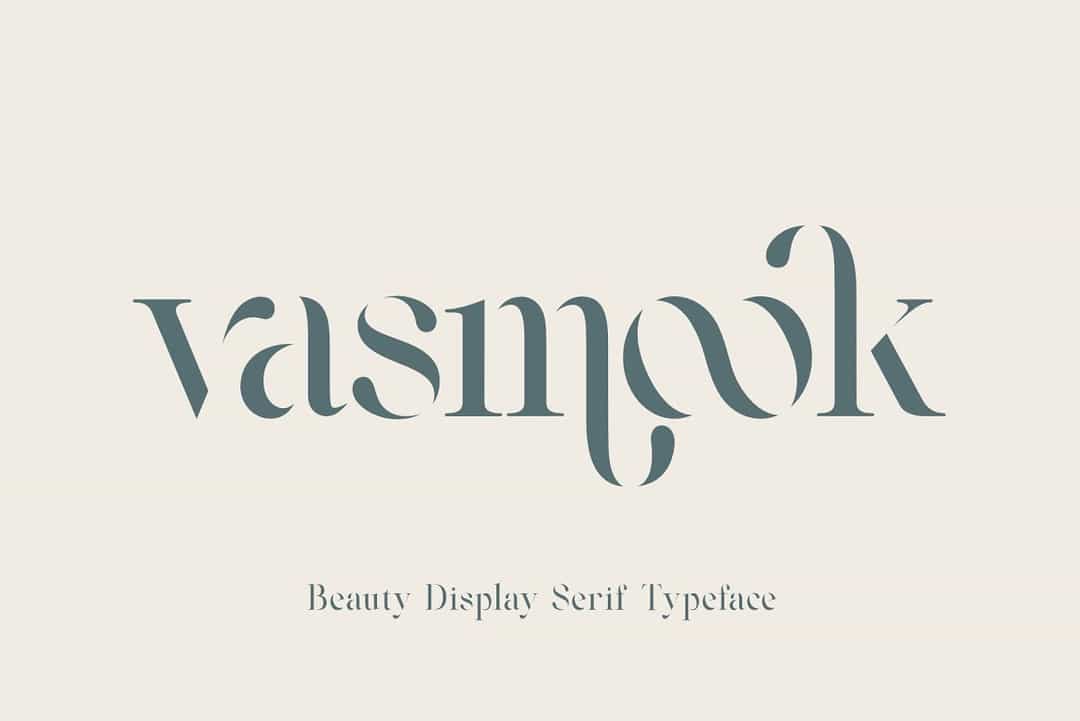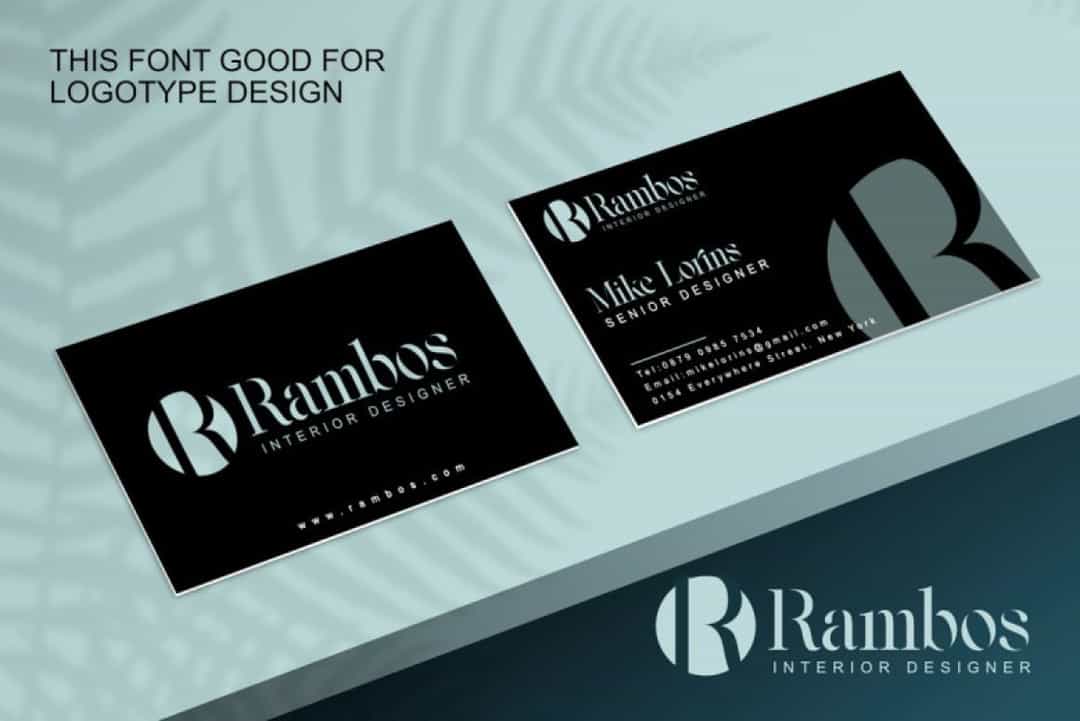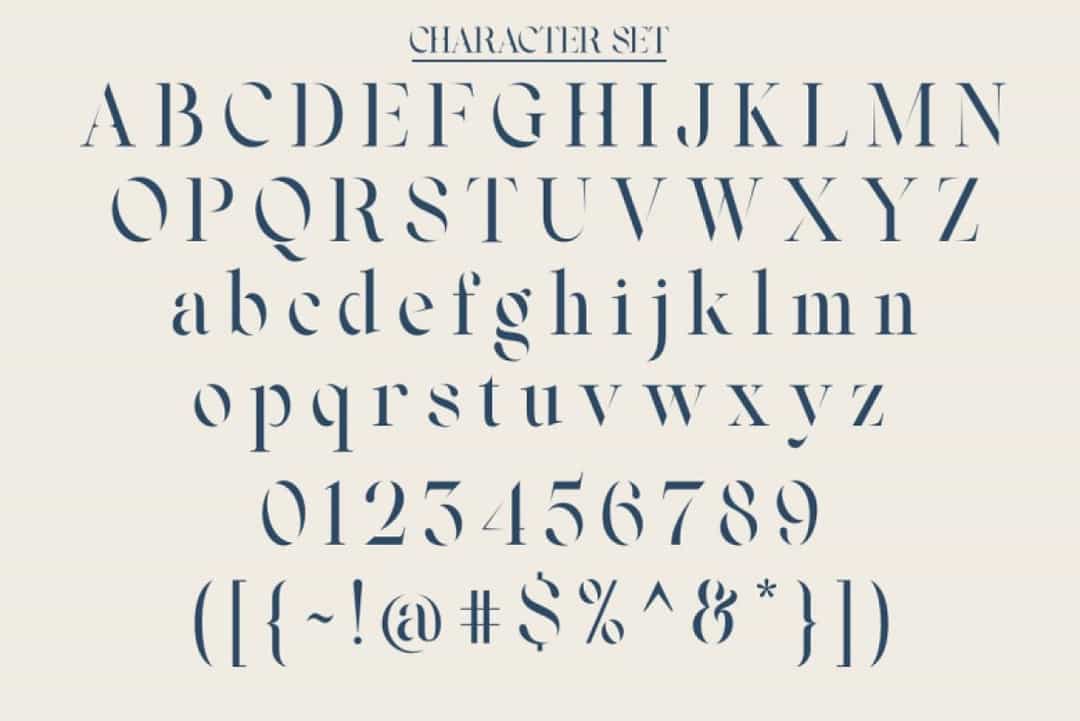
Vasmook Elegant Beauty Display Serif Font. Vasmook font features ligatures for easy typographic integration. Vasmook’s beautiful beauty Display Serif font is ideal for projects in the near future.